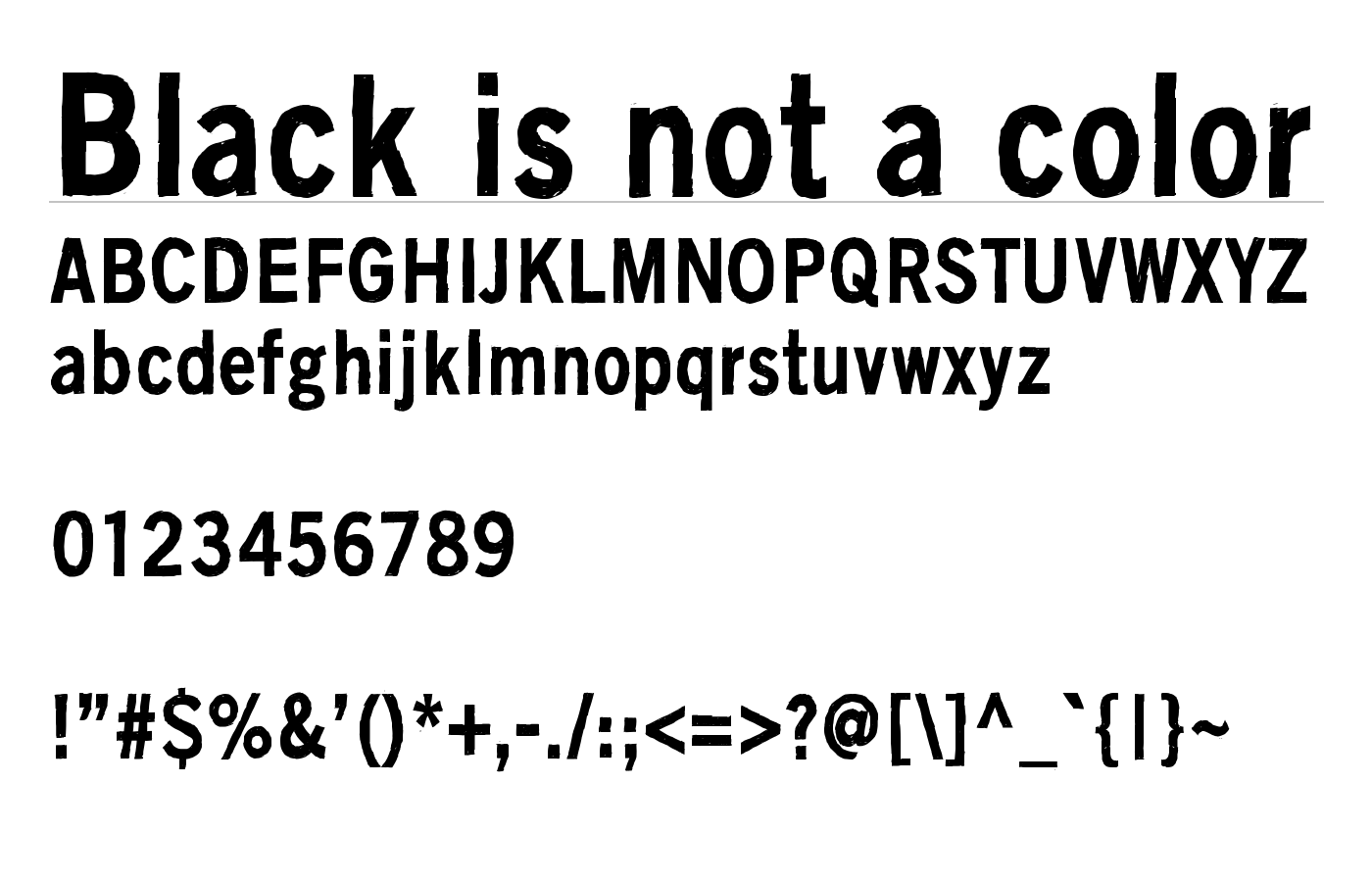
Black is not a color is a bold, condensed sans serif font with a rough, hand-stamped texture that gives it a raw and expressive character. Its uneven edges and strong presence make it perfect for edgy, creative branding, posters, and headlines where a distinctive, handcrafted look is desired. This font conveys authenticity and grit, making it ideal for designs that want to stand out with a bold, informal personality.
Black is not a color Font
About Black is not a color Font
| Font family | Black is not a color Font |